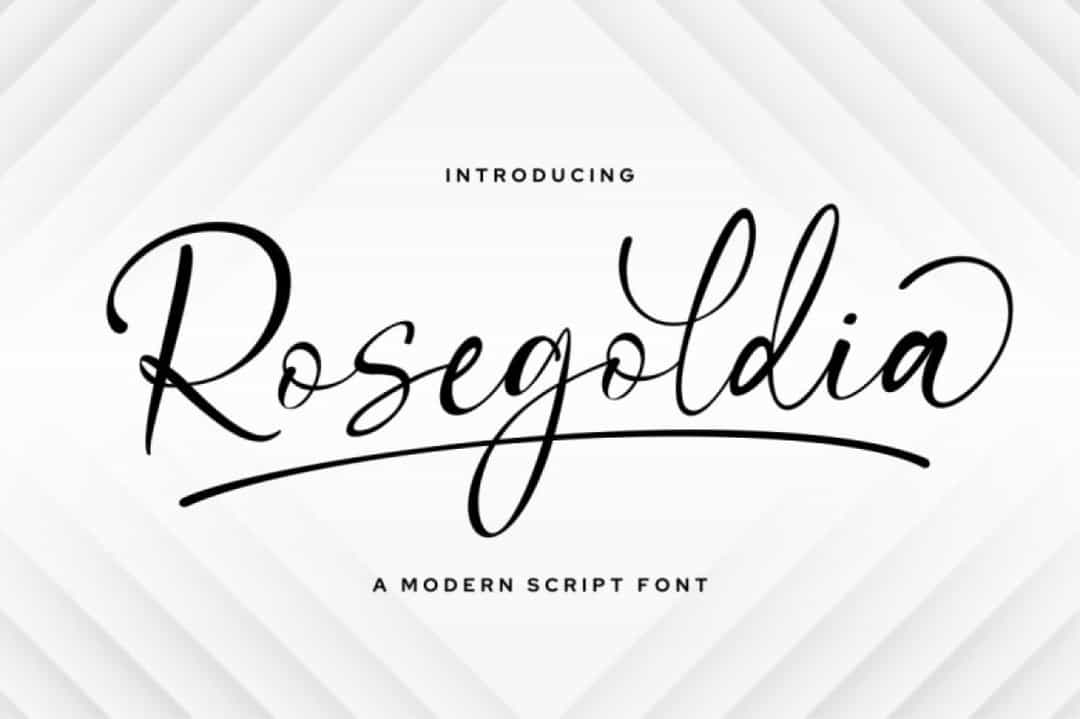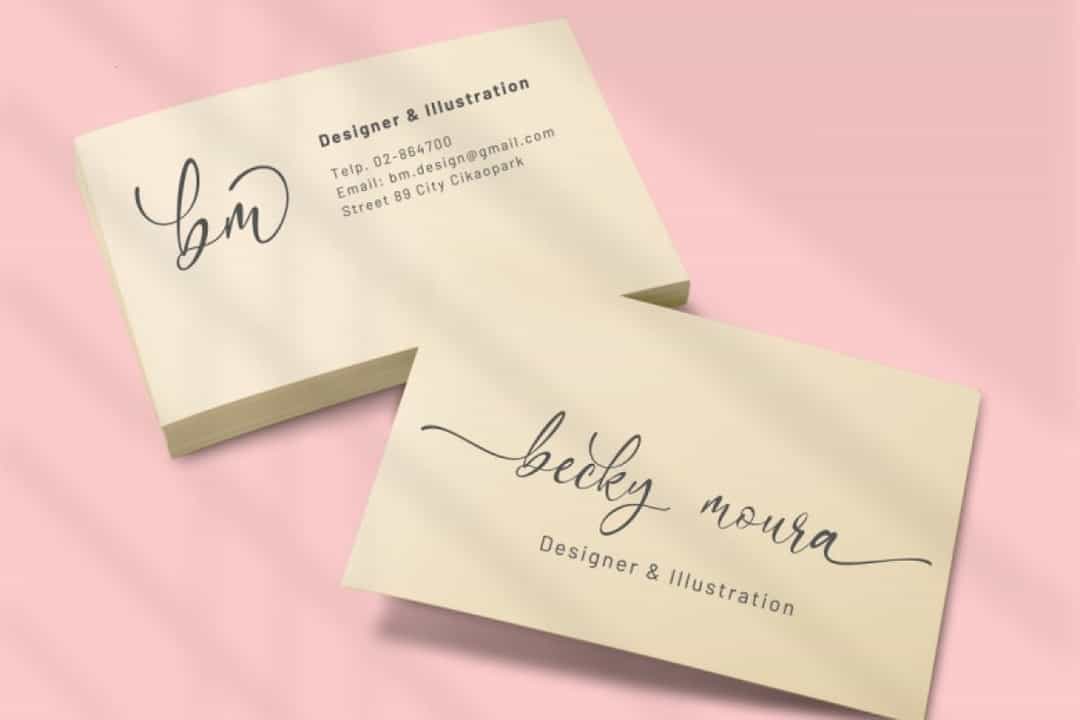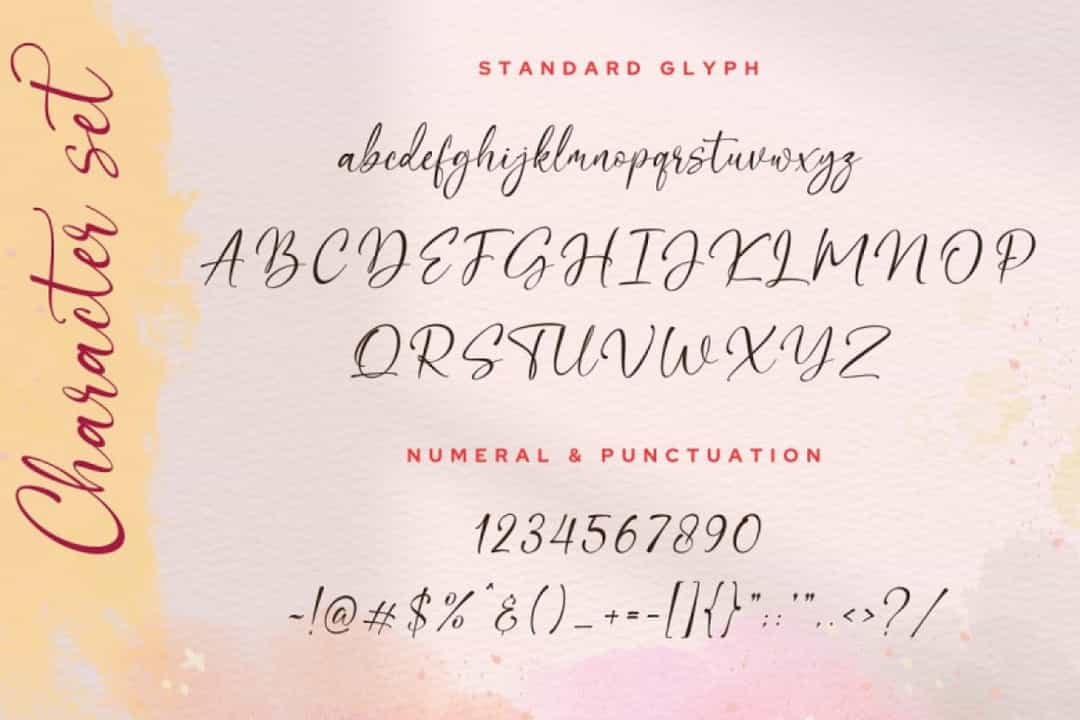
“Rosegoldia” is an elegant script font which blends modern style with refined elegance. Boasting curvatures and letterforms that bring an air of sophistication into your designs, “Rosegoldia” adds refined refinement for logos, branding or any project which needs contemporary script fonts. Ideal for logos, branding or any project which needs contemporary script fonts “Rosegoldia” is sure to bring refined refinement for all your projects!